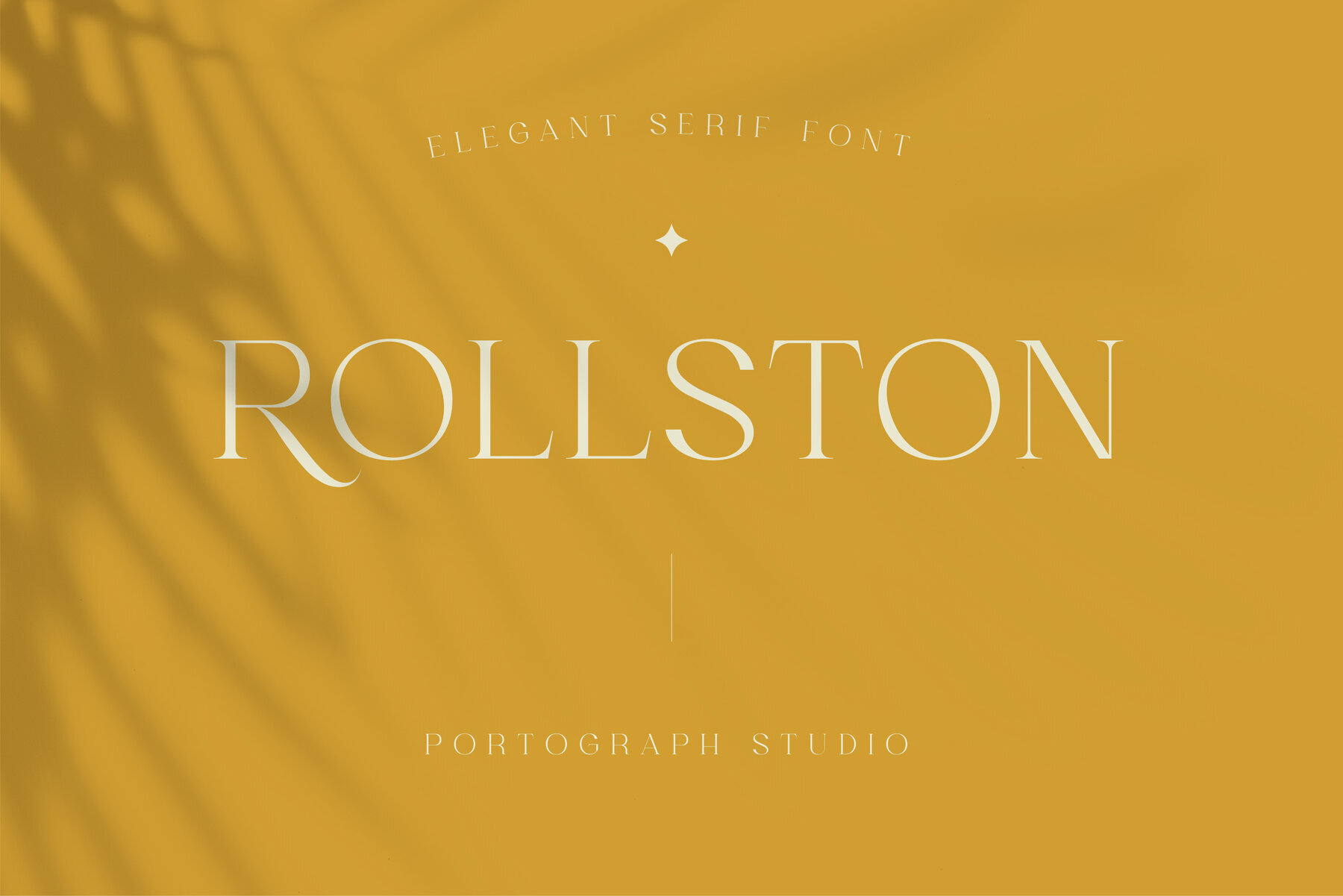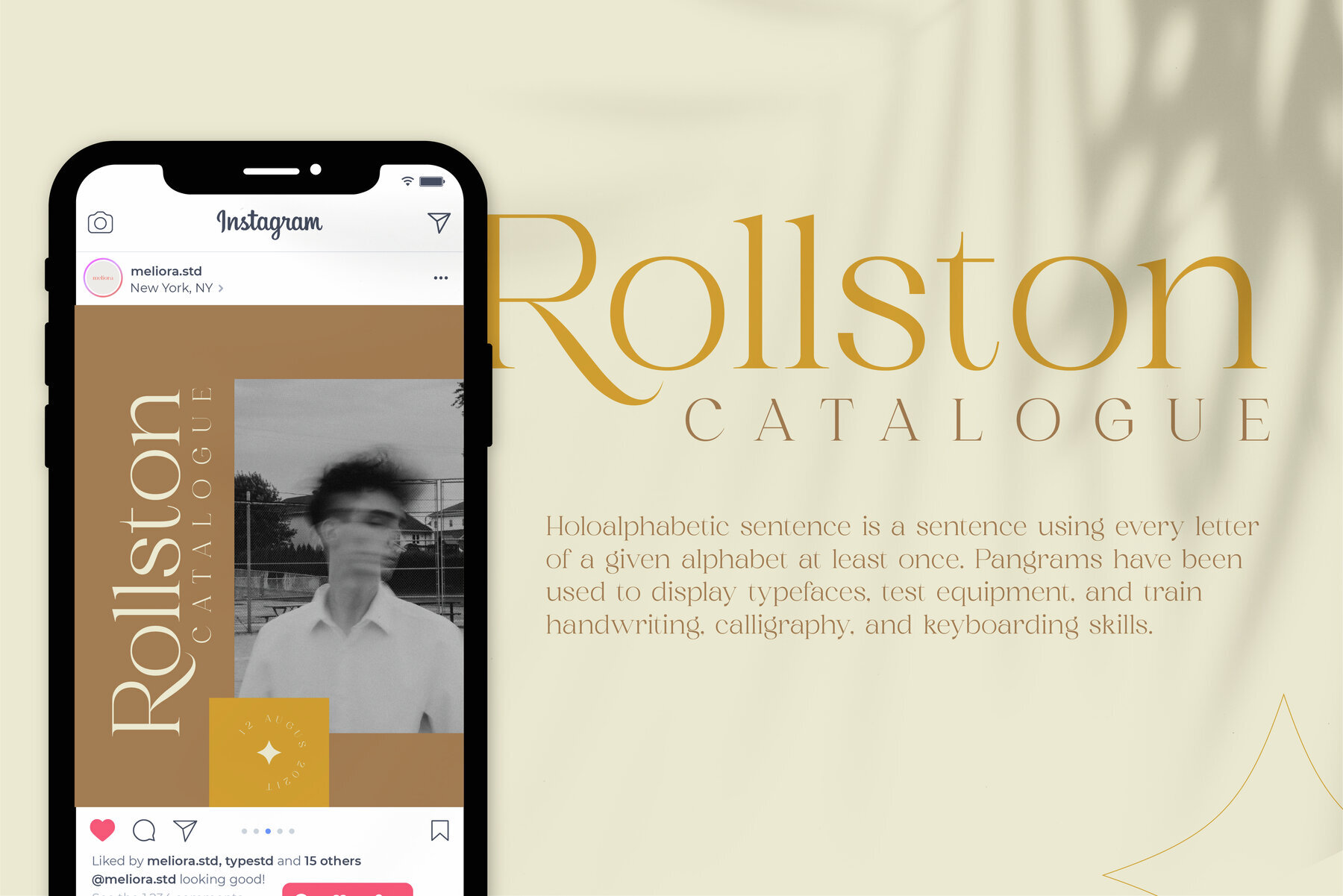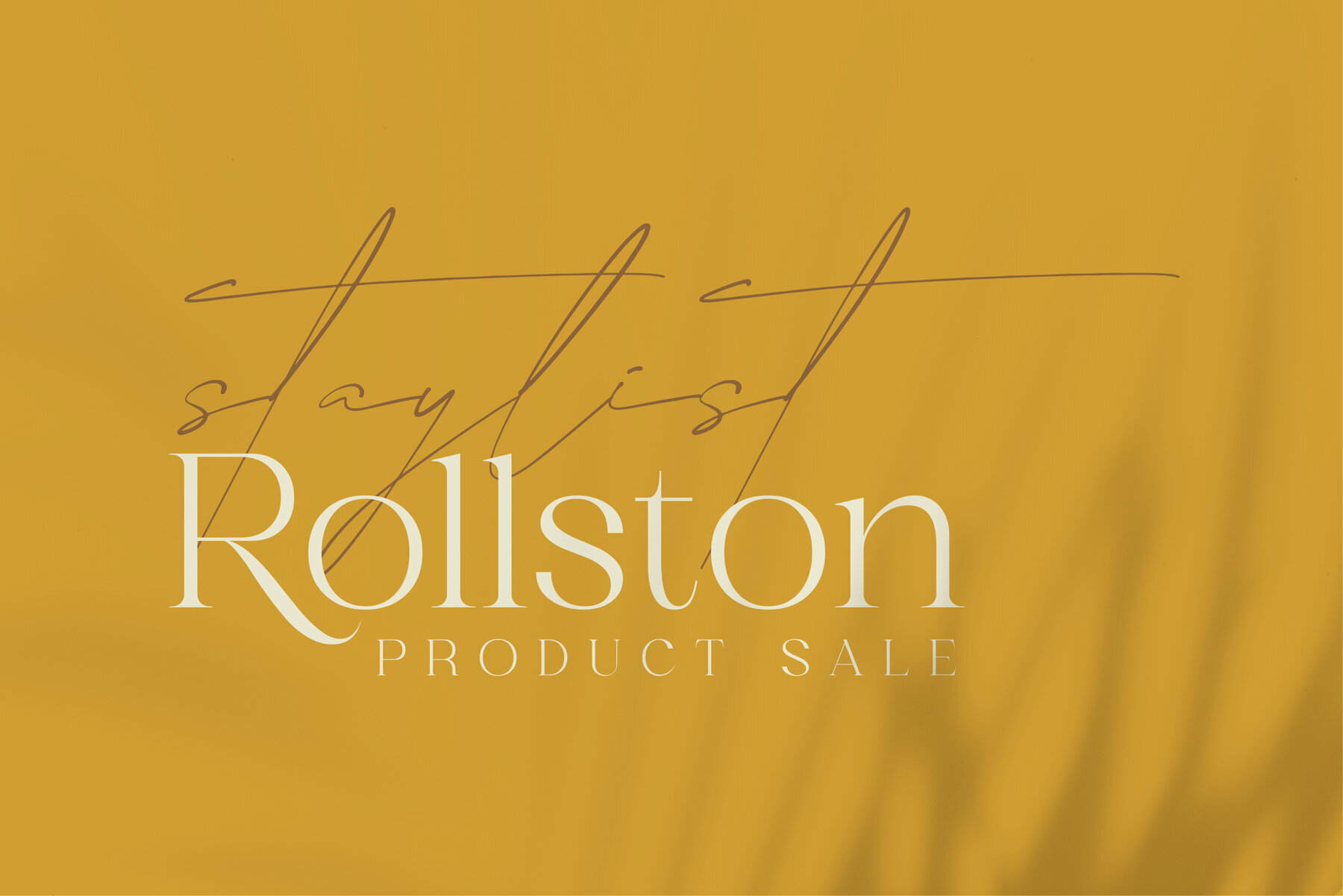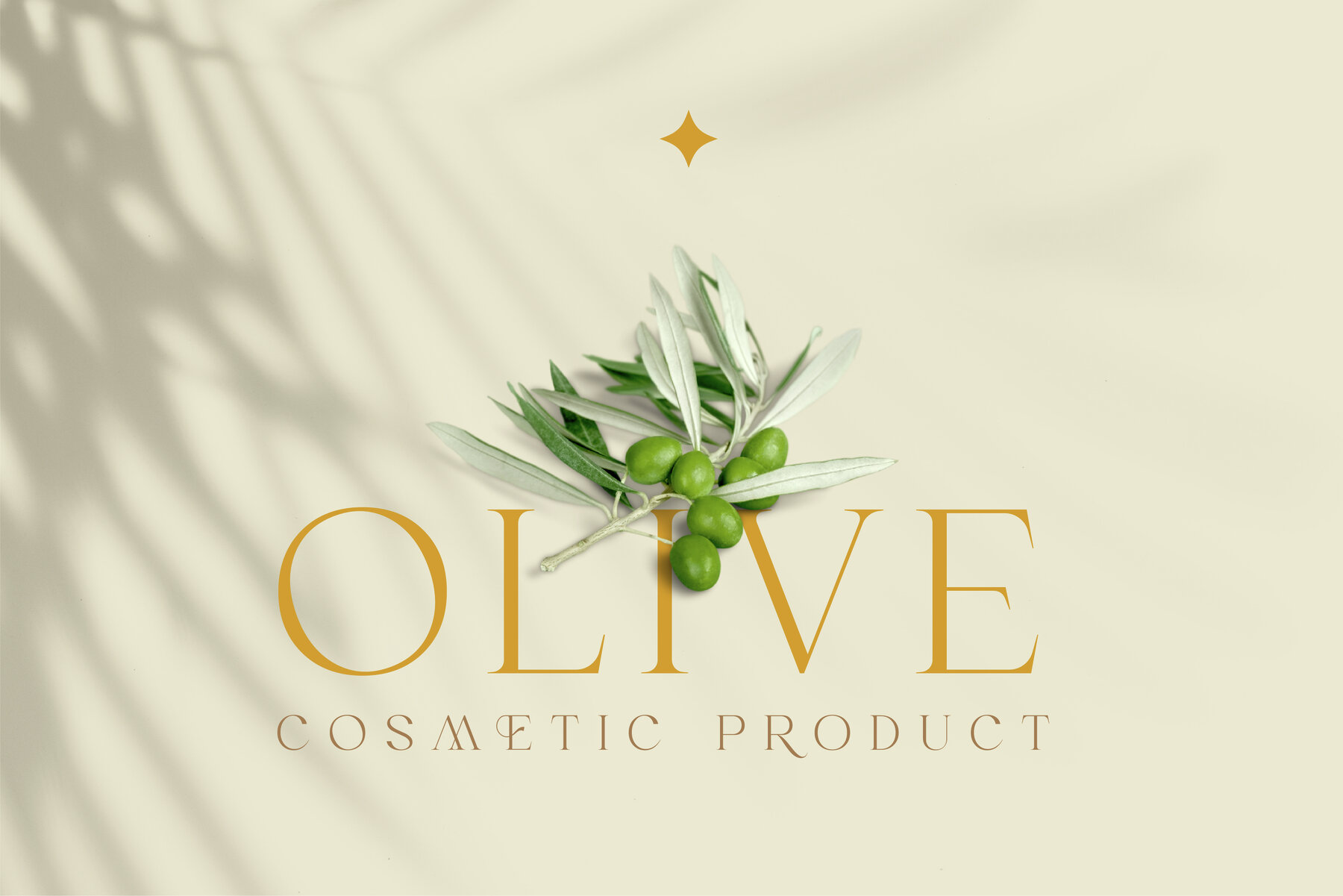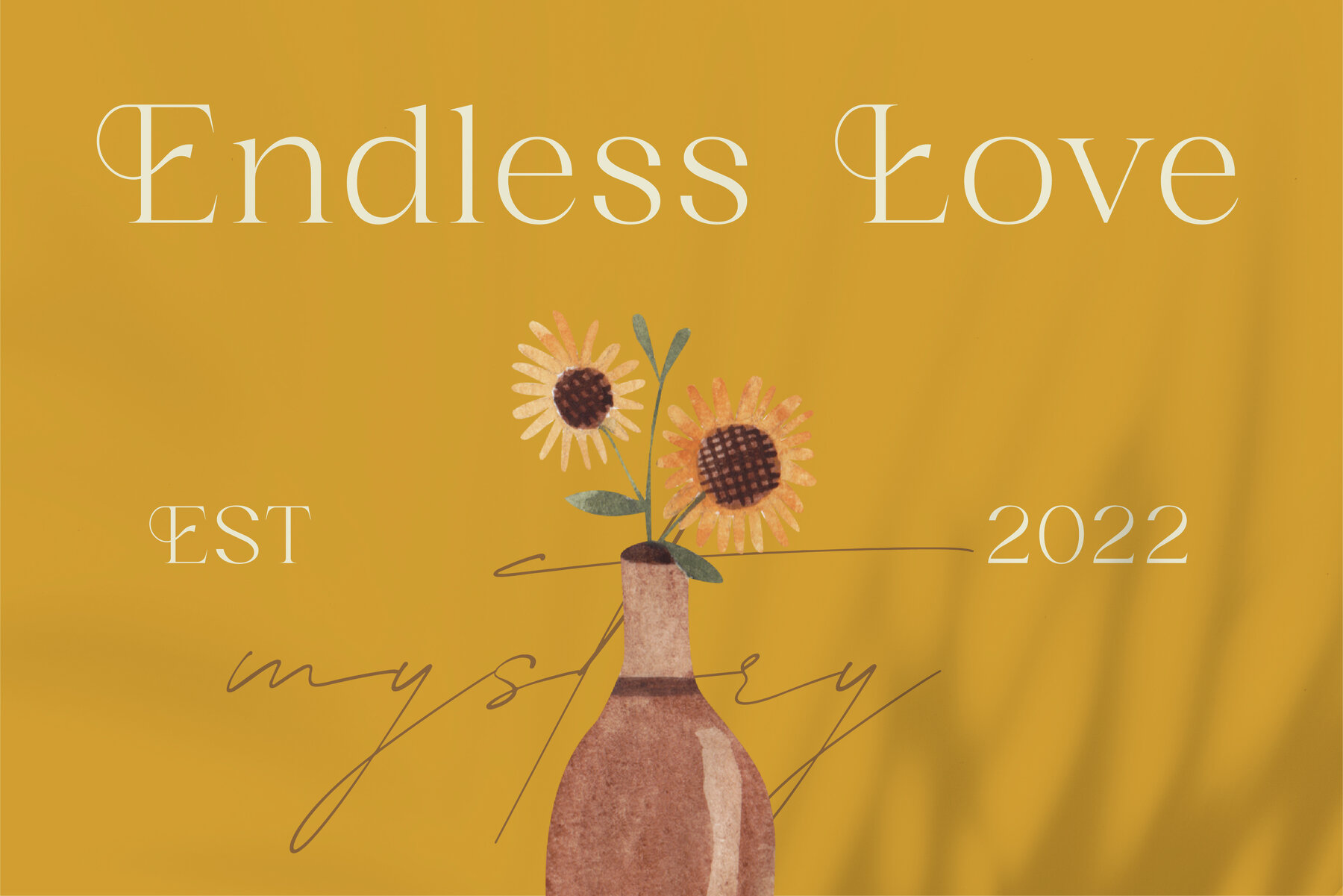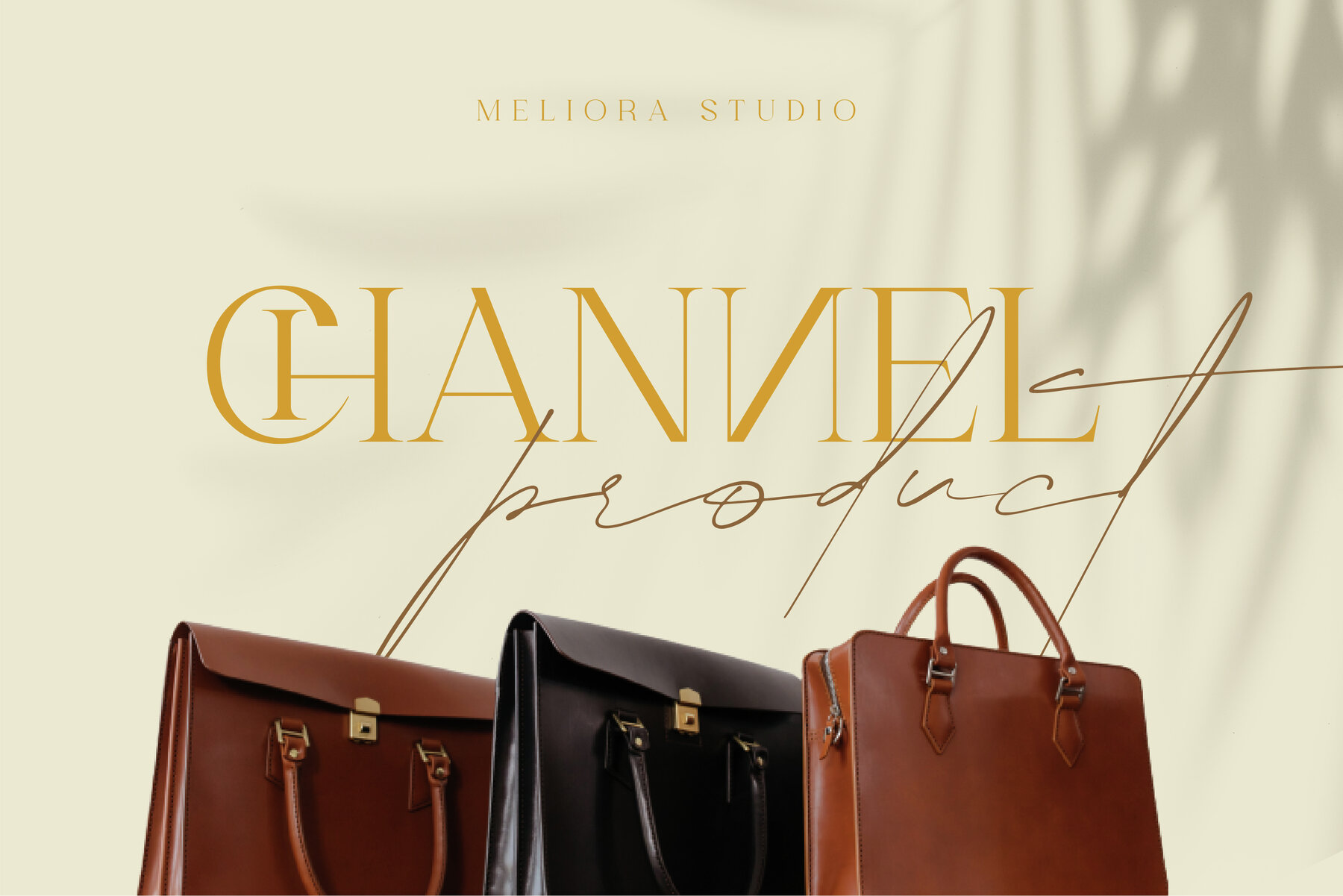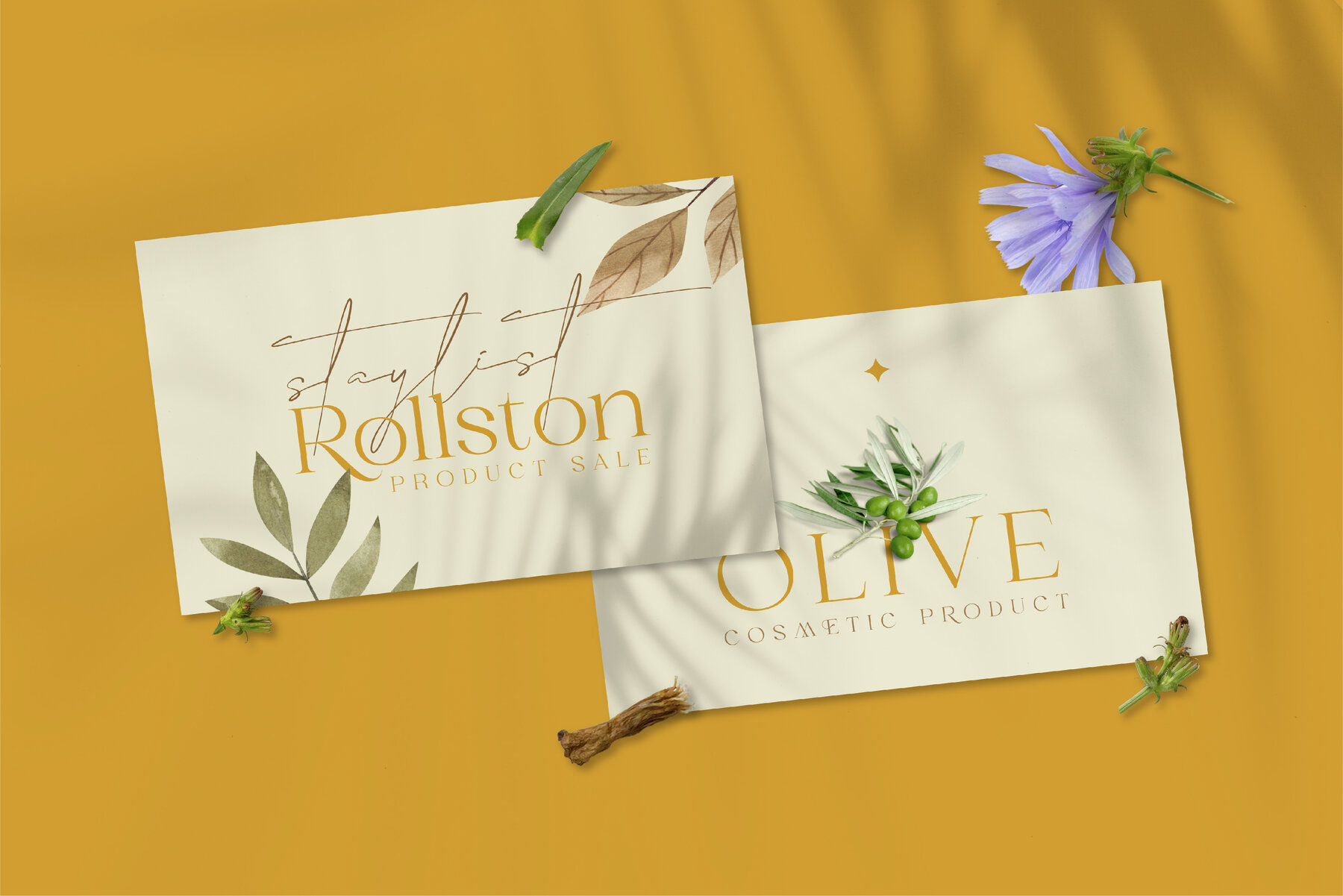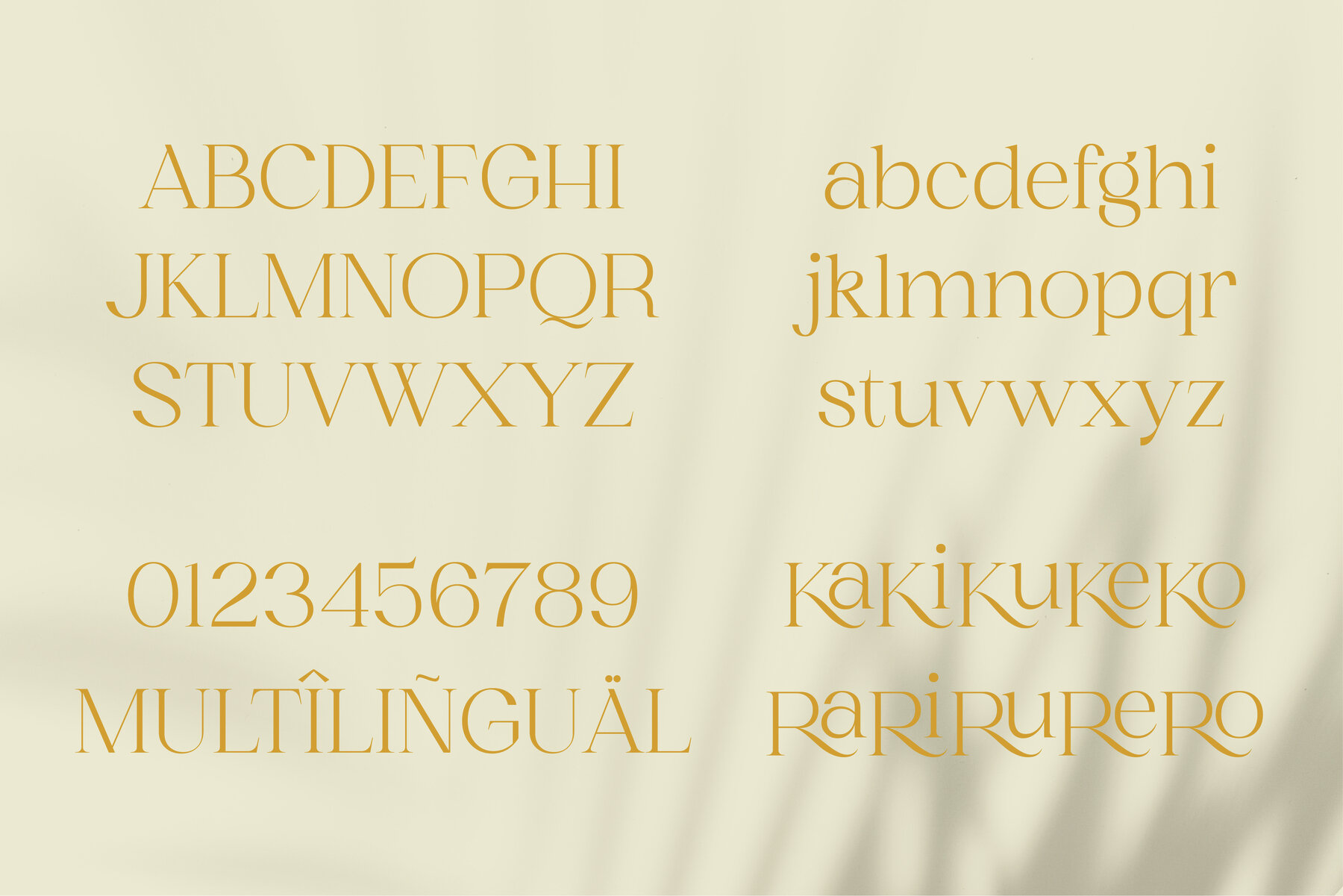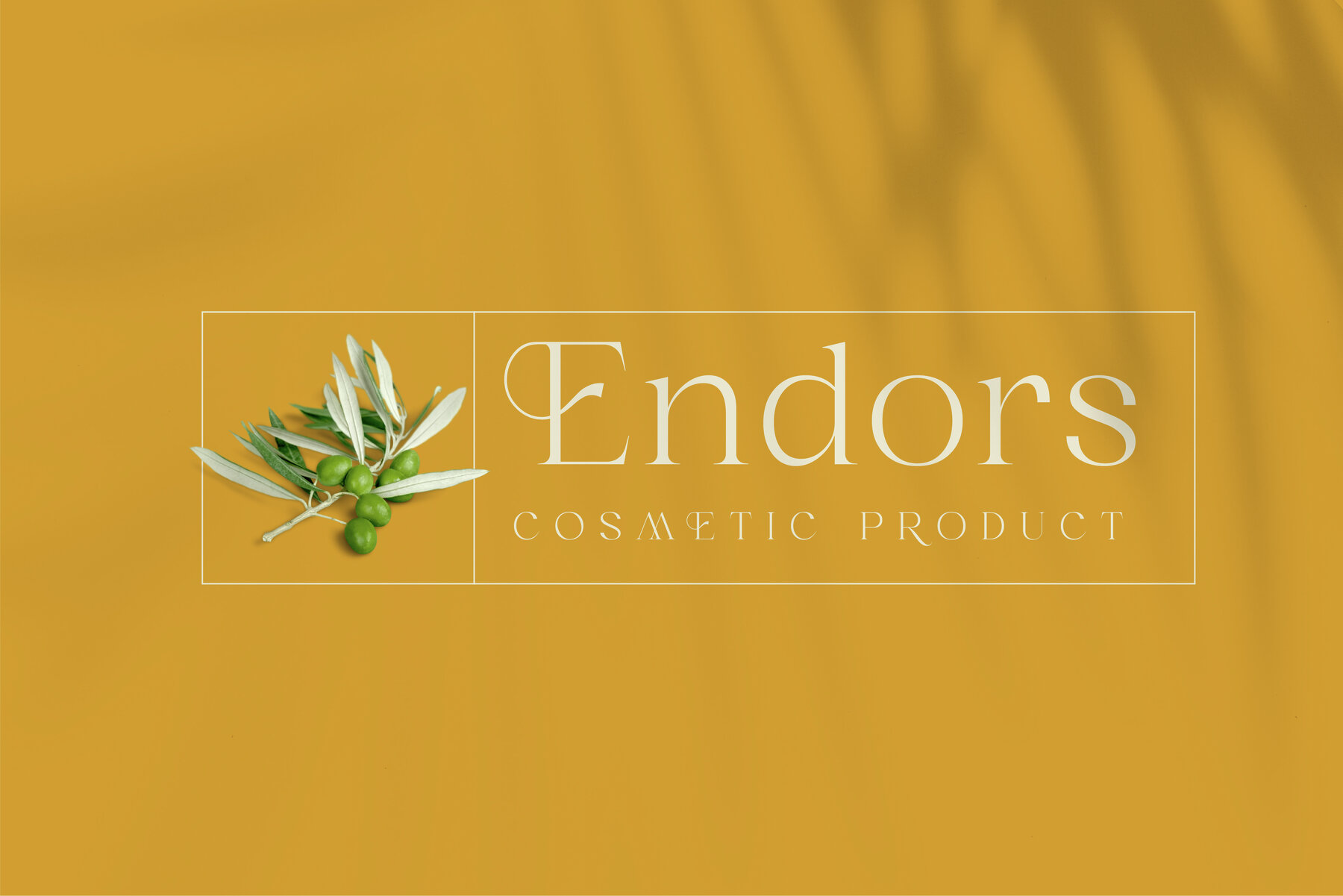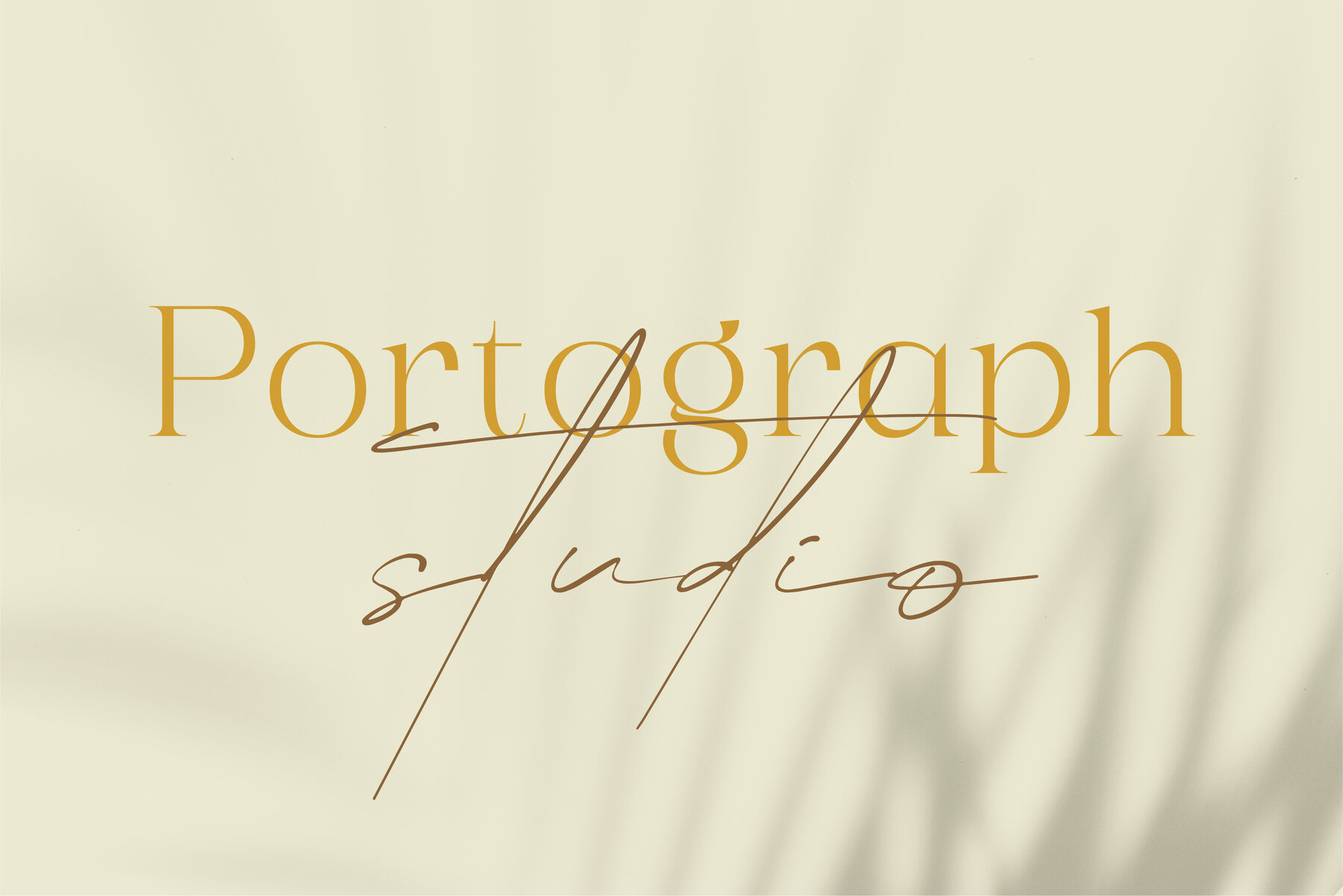
Rollston Font
Rollston is a serif-style font that resonates with the charm of yesteryear's athletic designs. This versatile typeface is perfect for holiday-themed projects, eye-catching t-shirt graphics, and much more.